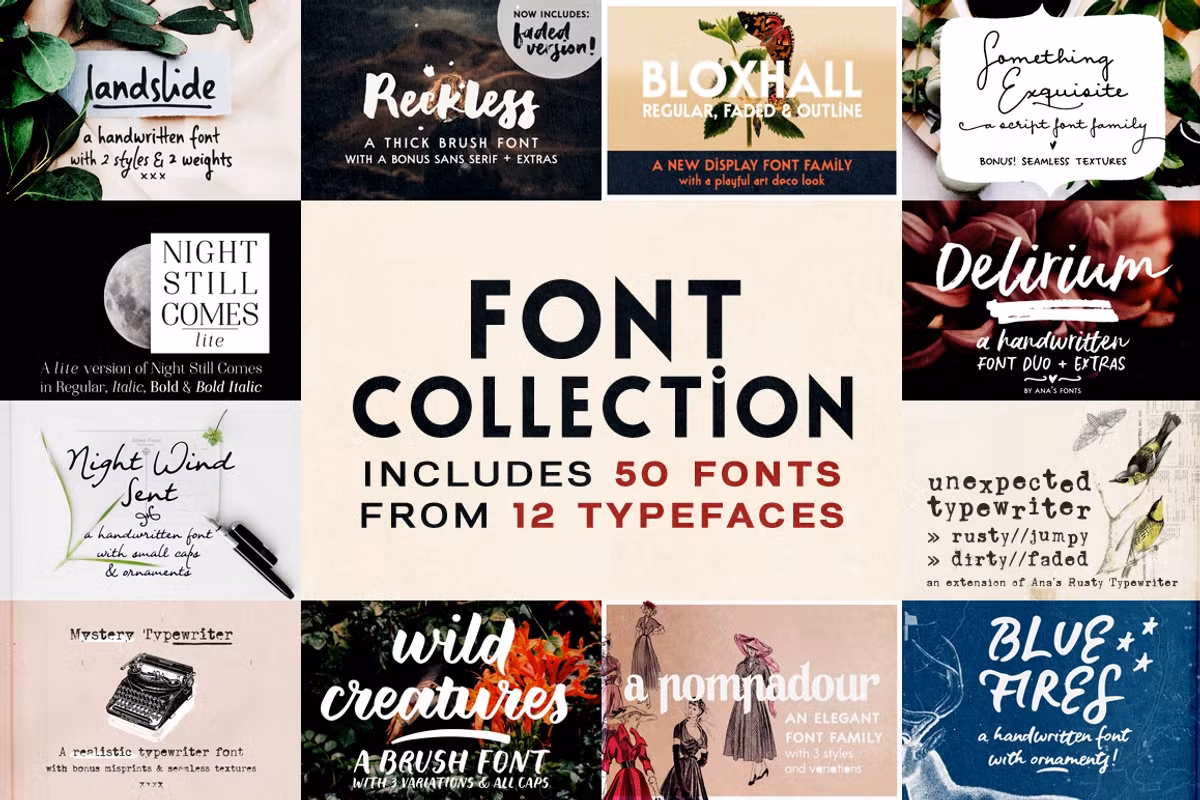
Font Collection Vol. 1 Free Download
Font Collection Vol. 1 Free Download is a versatile bundle of high-quality typefaces curated to suit a wide range of design needs. From elegant scripts and bold displays to clean sans-serifs and playful handwritings, this collection is perfect for logos, branding, social media, packaging, posters, and beyond.
Each font in the bundle is thoughtfully crafted and brings its own unique character—giving designers the flexibility to mix and match styles with ease. The collection includes multilingual support, punctuation, and full compatibility with both Mac and Windows platforms.